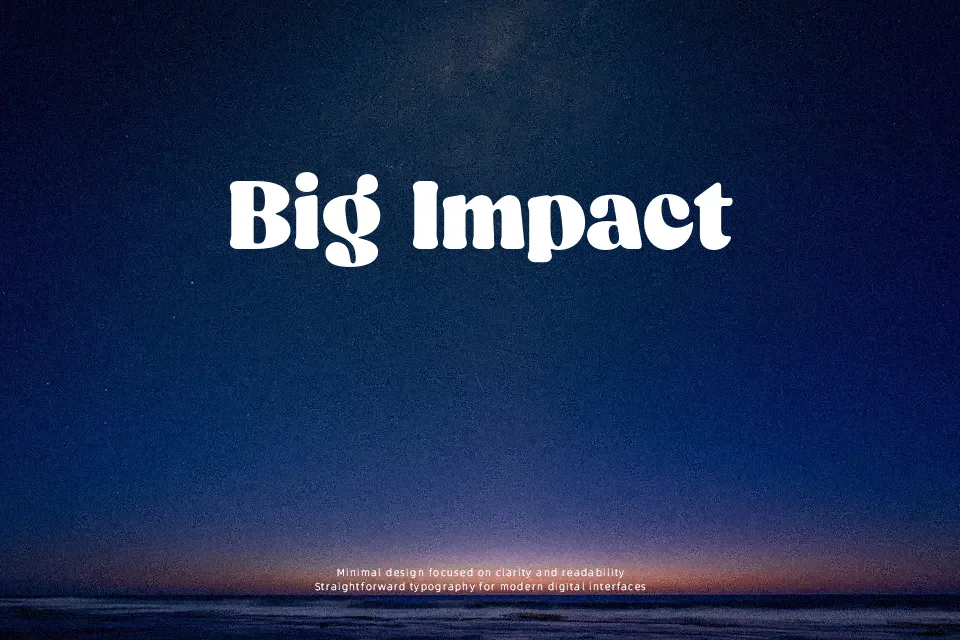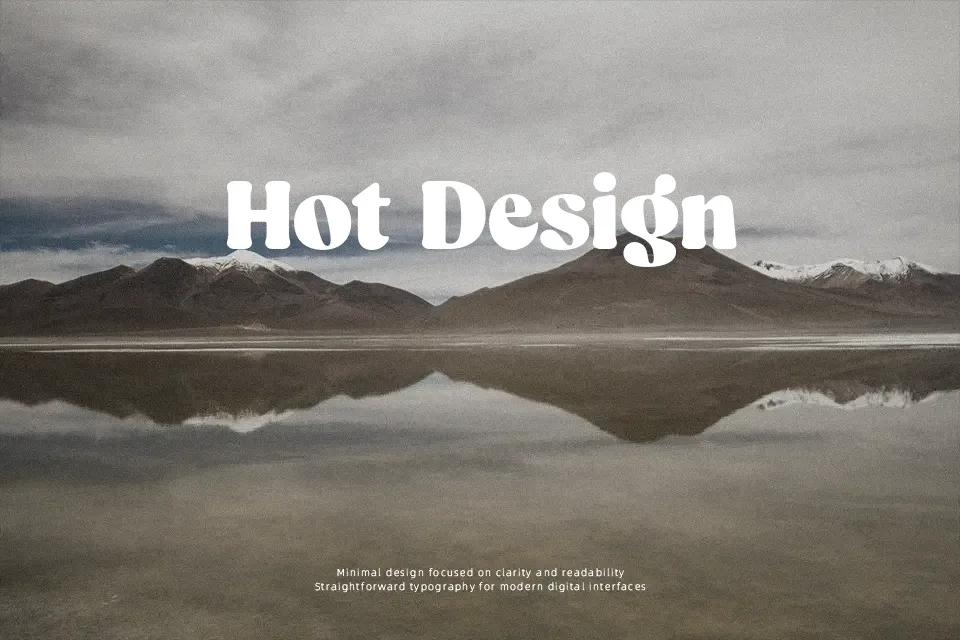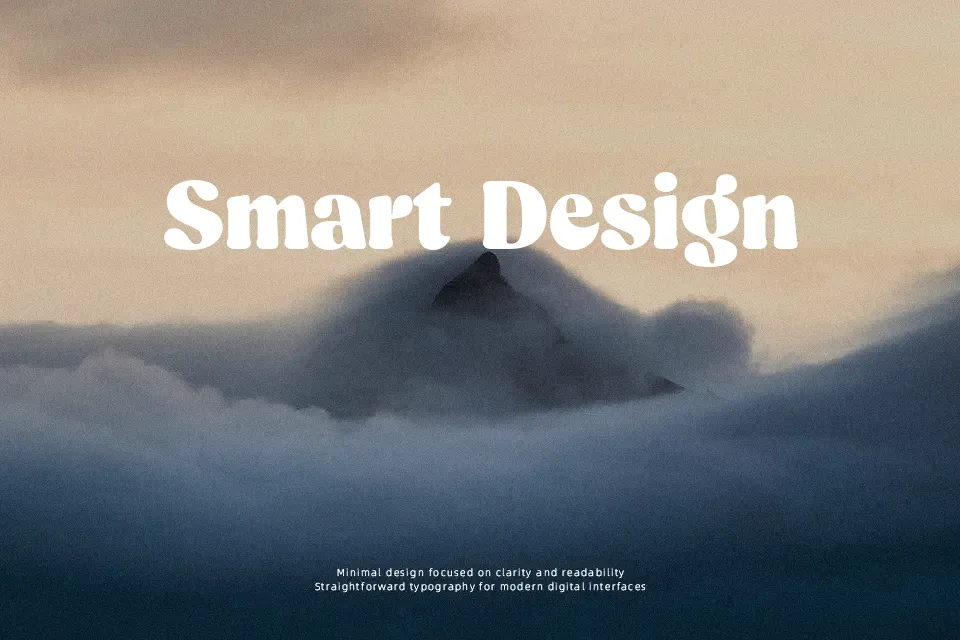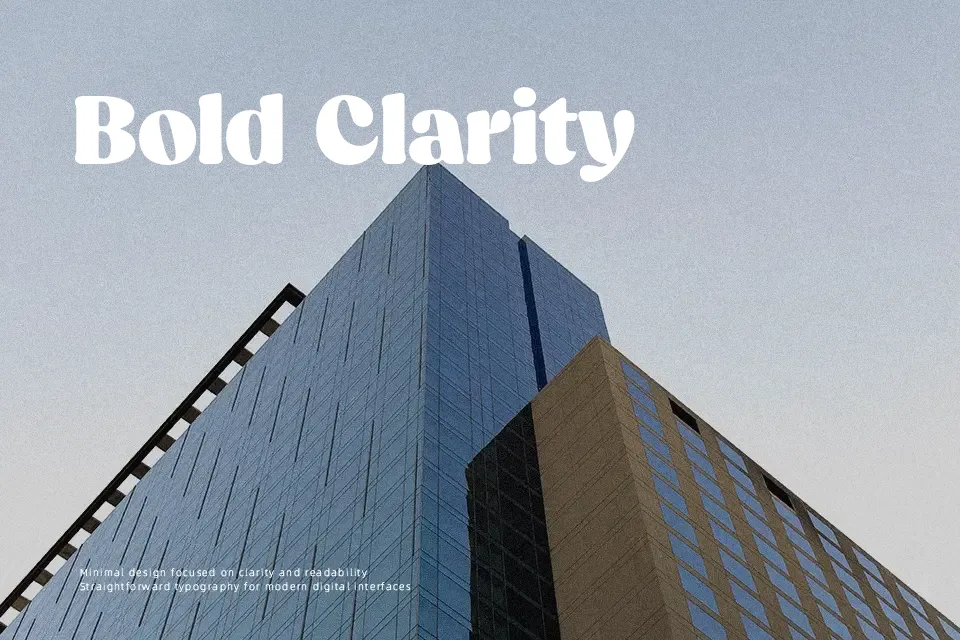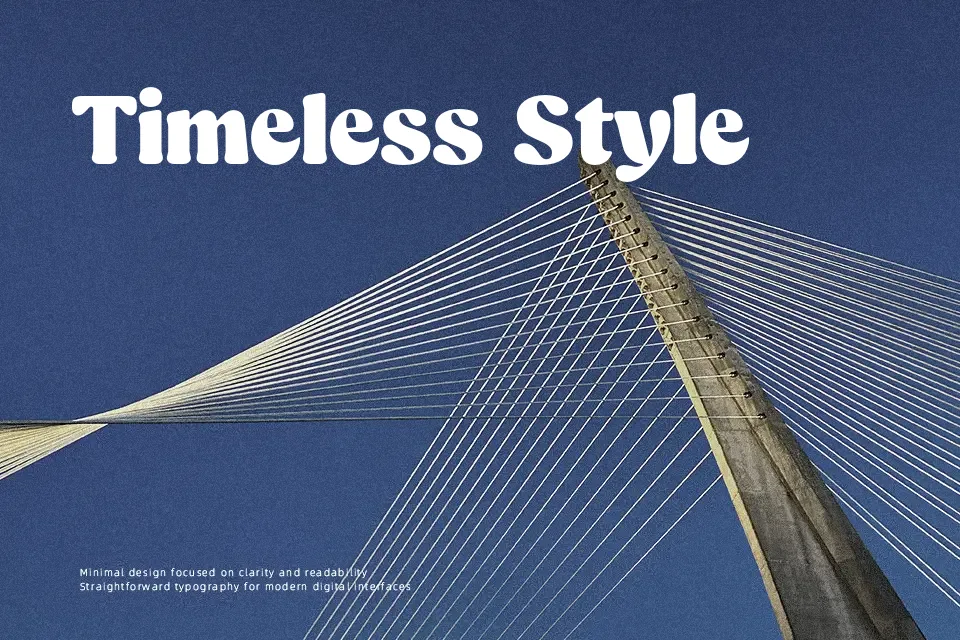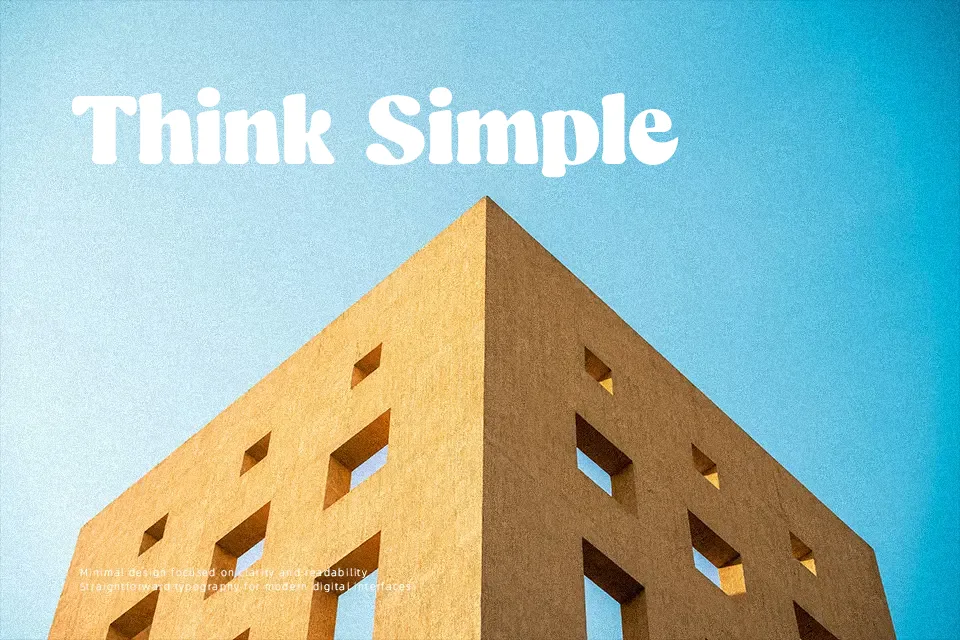
Capuche Font
Capuche Font is characterized by heavily inflated strokes, dramatic weight distribution, and compact letter spacing that evoke vintage display typography. The design pairs bulbous outer contours with narrow, constricted internal apertures, creating a bold rhythmic flow across short phrases. Proportions remain deliberately chunky throughout the character set, which ensures a commanding visual presence on event posters, apparel graphics, and packaging labels. However, the sheer density of the letterforms causes smaller text sizes to fill in quickly, making continuous reading difficult. The heavy strokes demand generous surrounding whitespace to maintain clarity in crowded compositions.
retro apparel graphics
vintage product packaging
album cover headlines
continuous paragraph text
compact mobile interfaces
tabular financial data
fine print captions
Perfect for headline, logo, and music, with a bold and decorative style.